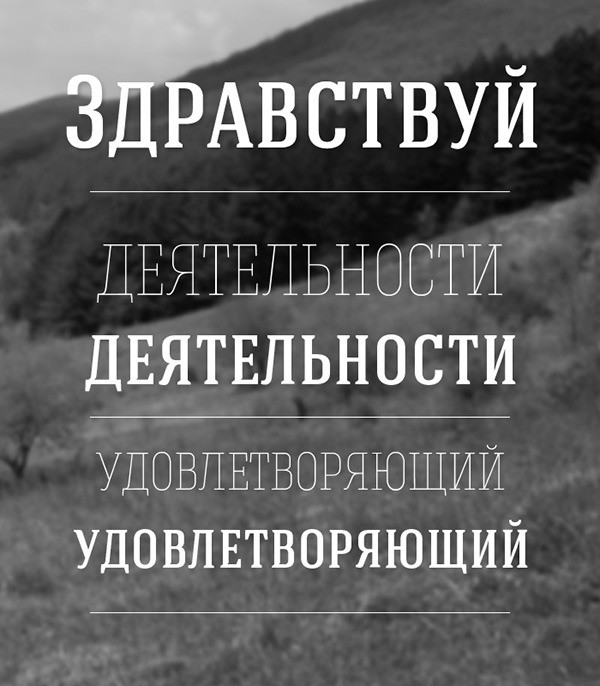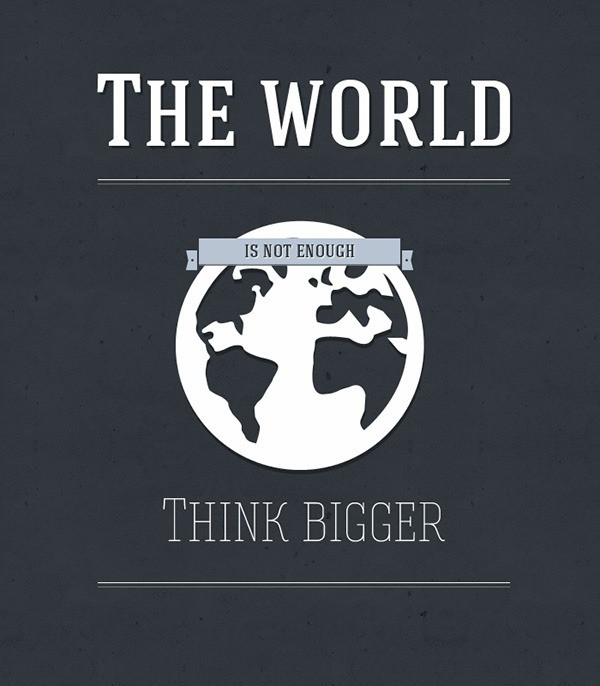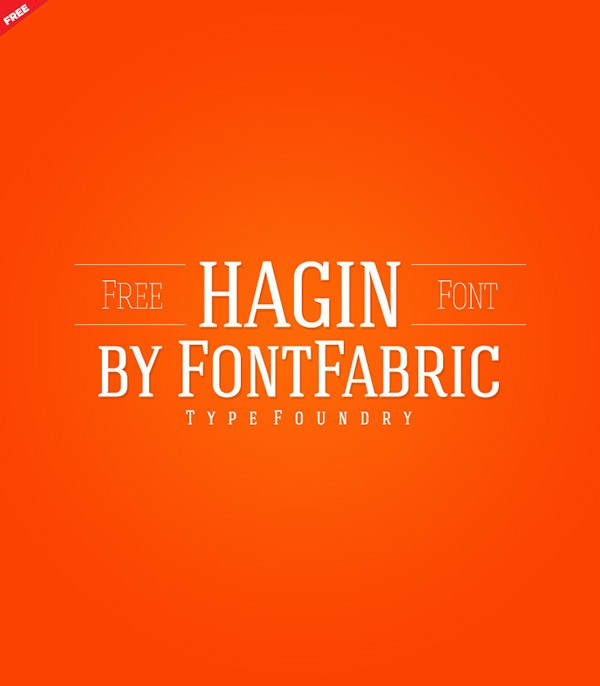
Hagin Font is a new serif free font from Fontfabric constructed with strong geometric forms in “old school” style. Applicable for any type of graphic design – web, print, motion graphics etc and perfect for t-shirts and other items like posters, logos. Have fun!
Hagin Font
| Classification: | Retro / Vintage Fonts, Serif Fonts |